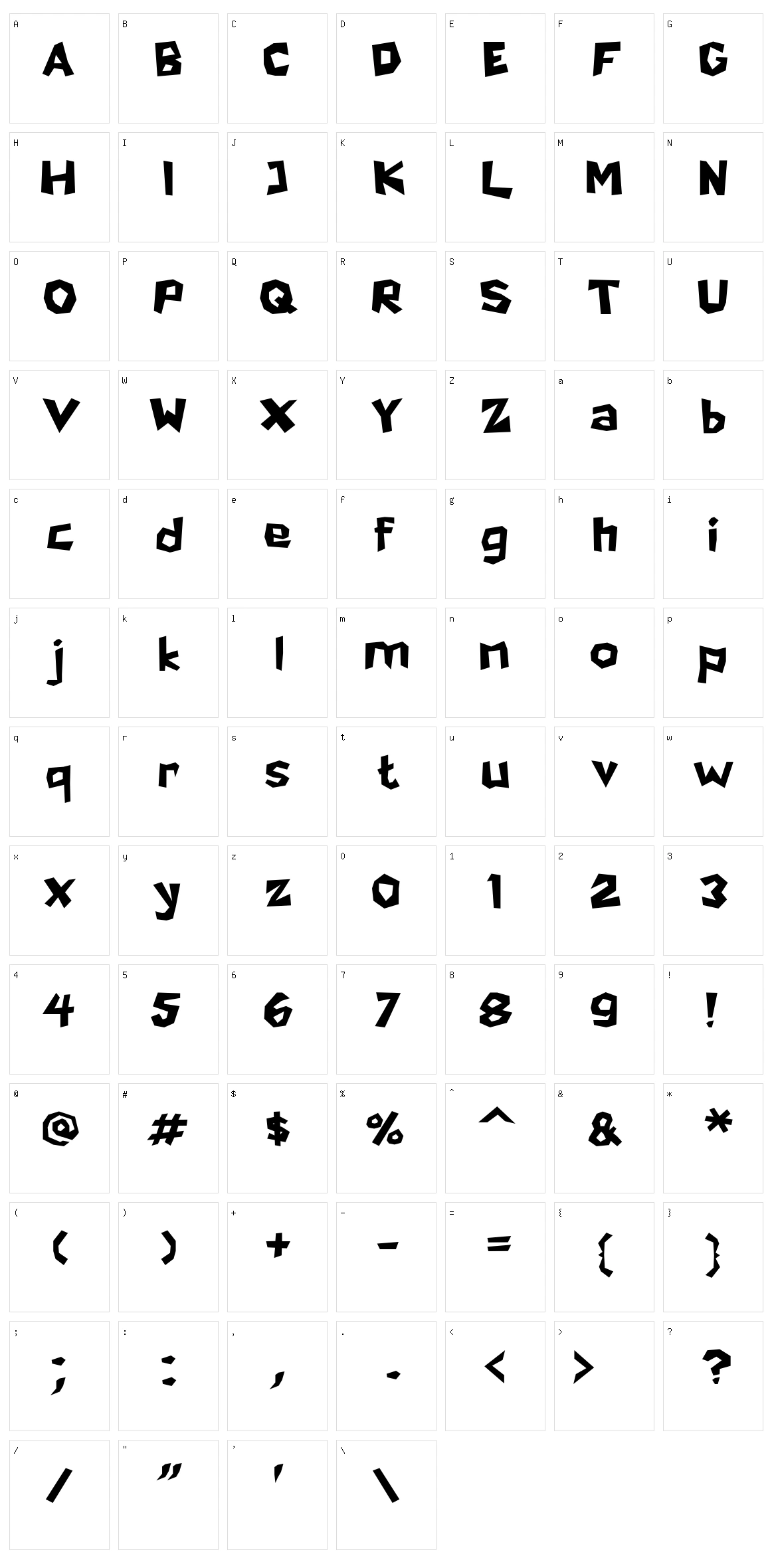
The free font Kultros is carefully designed by Muchammad Wahono Sapto Adi Saputro, showcasing a thoughtful balance of creativity and usability and falls under the Cartoon font style. When you download the ZIP file, it contains only 7.11 KB of font files, making it lightweight and quick to download. Please review the license details below to understand permitted usage and distribution rights. If license information is not available, we recommend using this font for personal projects only or contacting the author directly for commercial usage permissions.